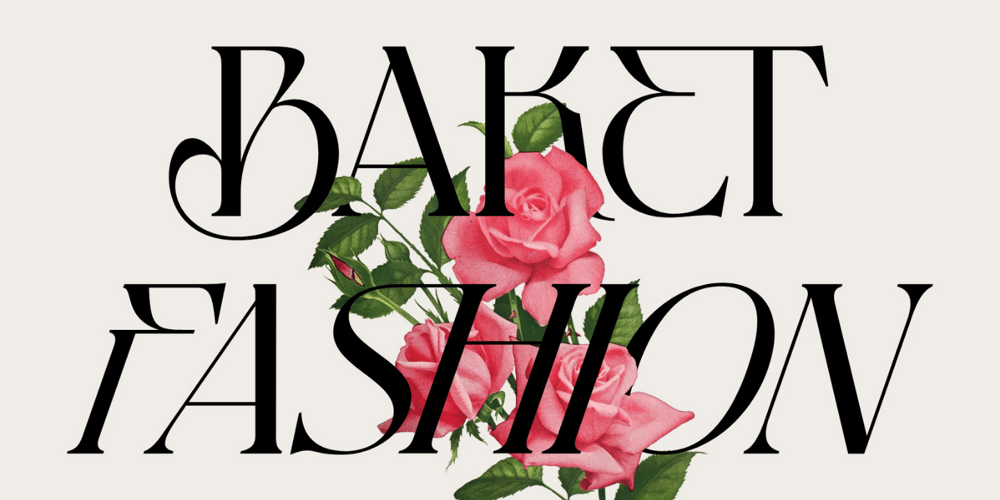
Baket Fashion Font Family was designed by Sigit Dwipa and published by Nirmana Visual. Baket Fashion contains 2 styles and family package options. Introducing our exquisite elegant style font, designed to bring sophistication and grace to your designs. With its refined letterforms, delicate curves, and timeless beauty, this font is perfect for projects that require a touch of elegance and class.Inspired by the elegance of classic typography and the beauty of Serif, this font exudes a sense of refined aesthetics.